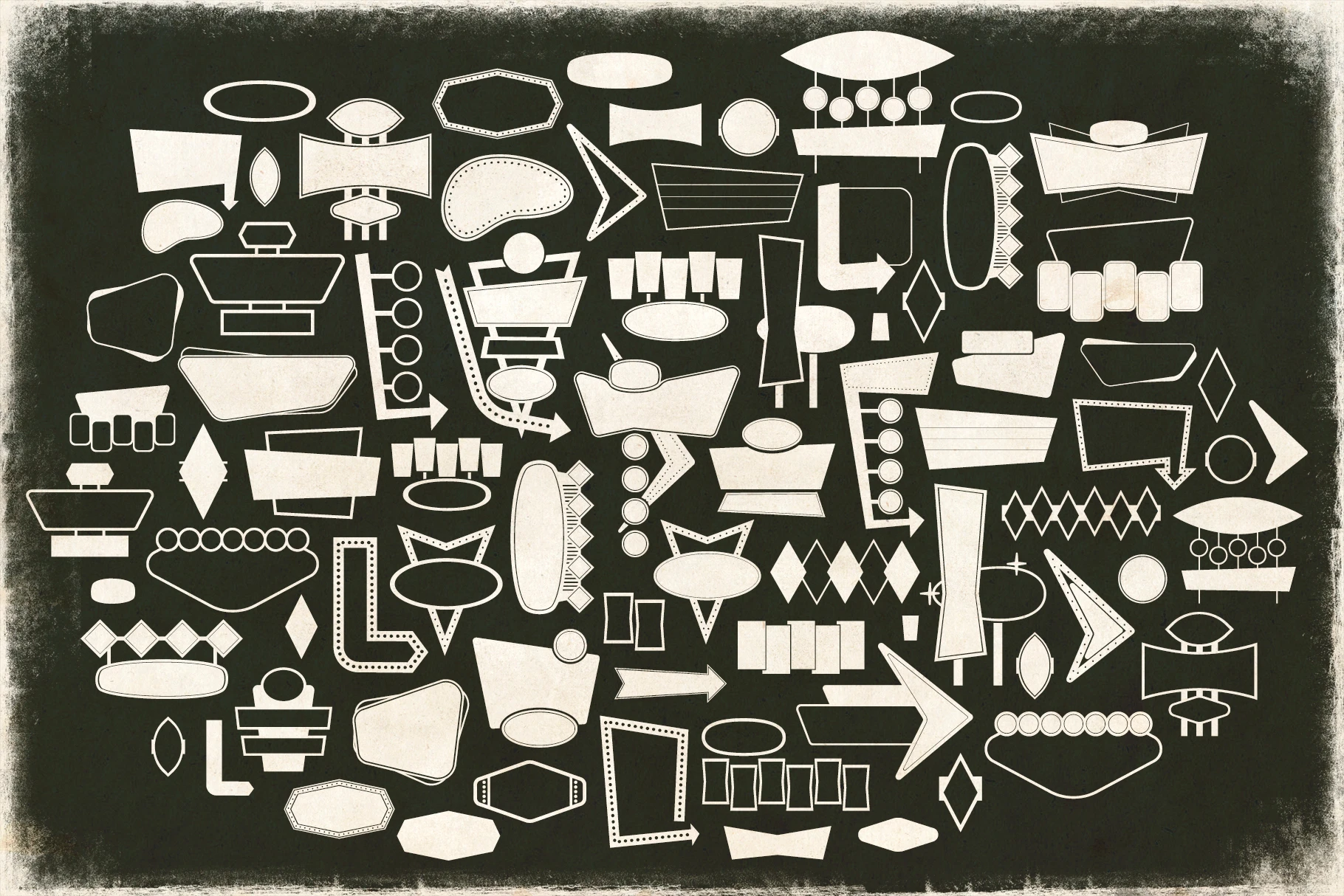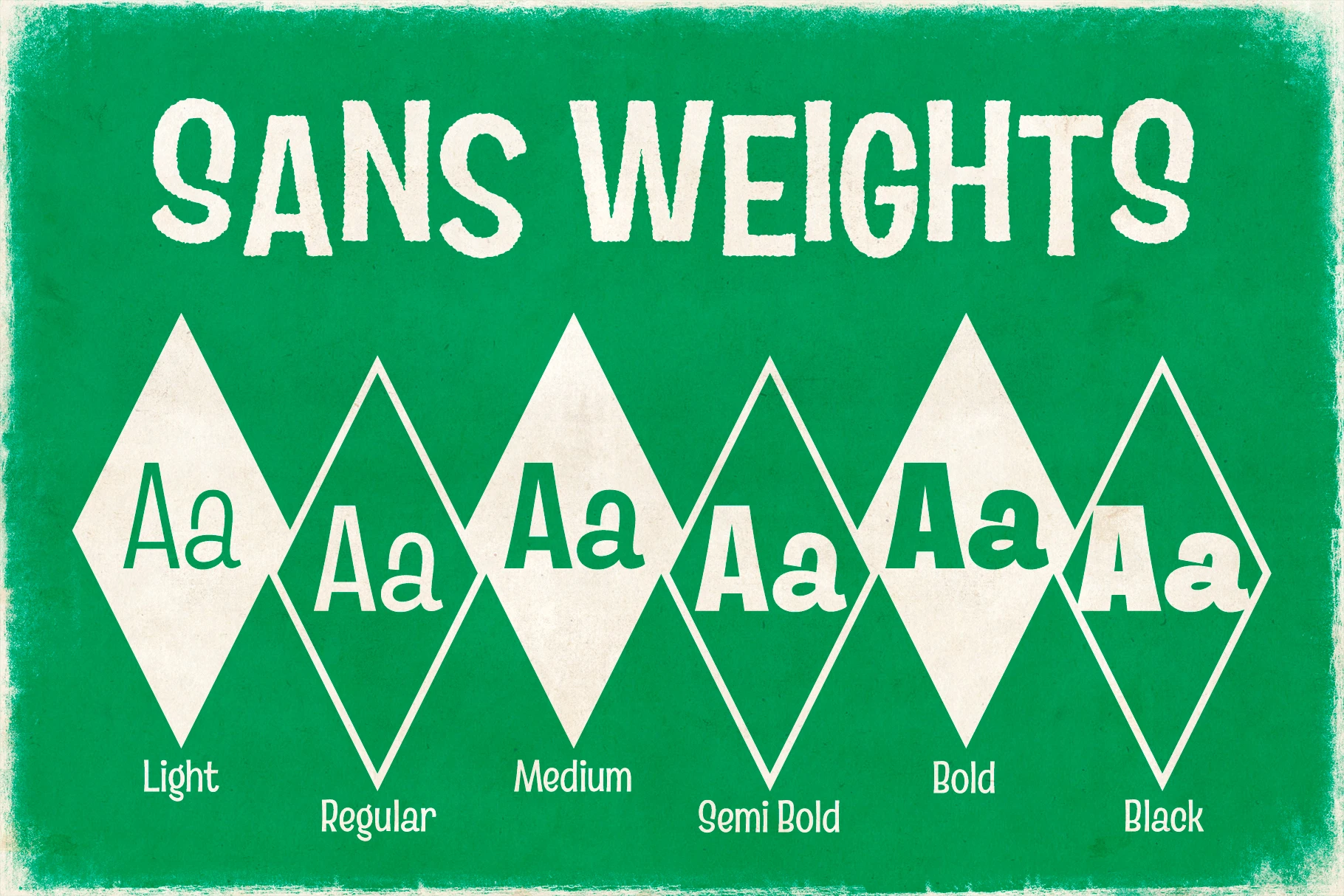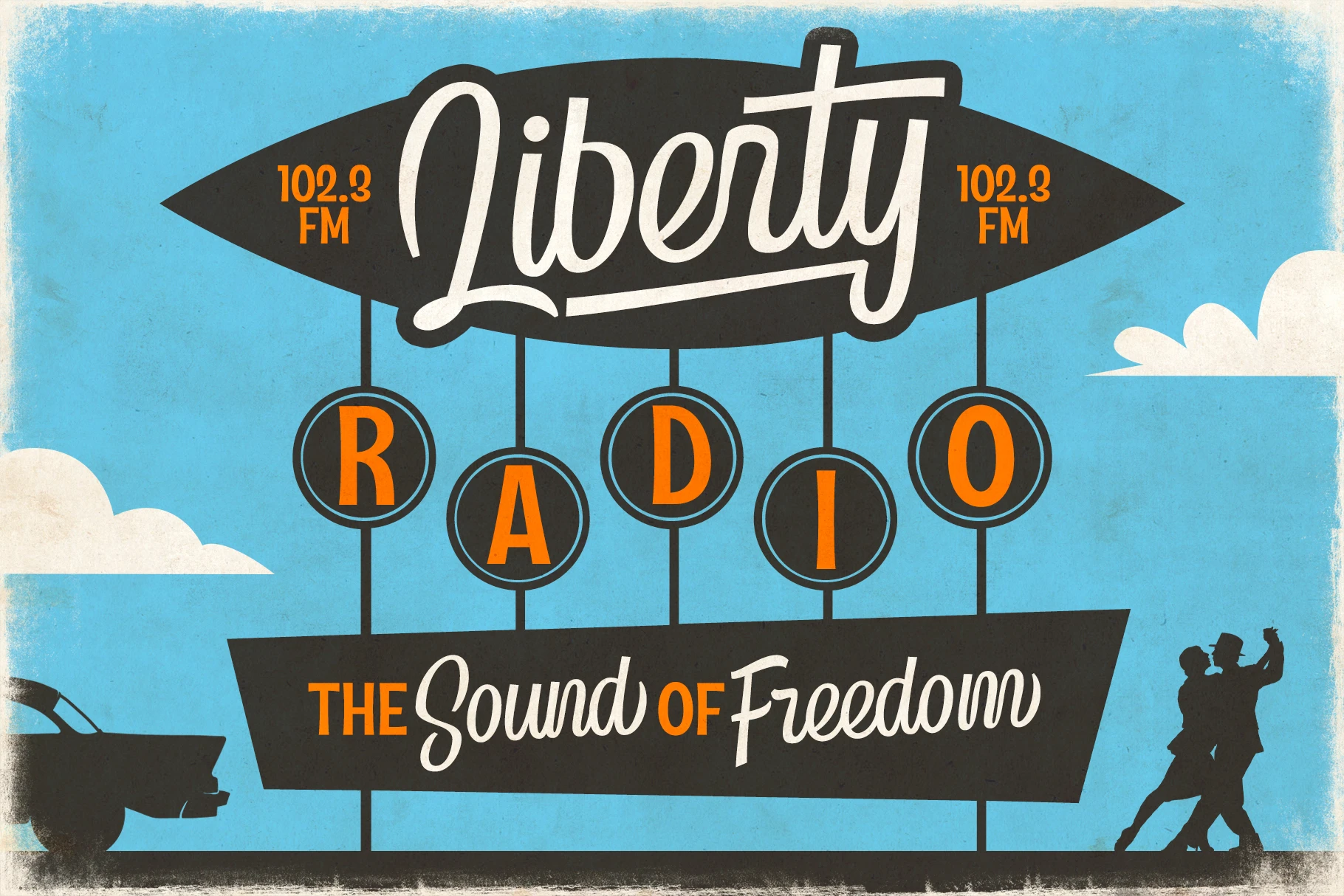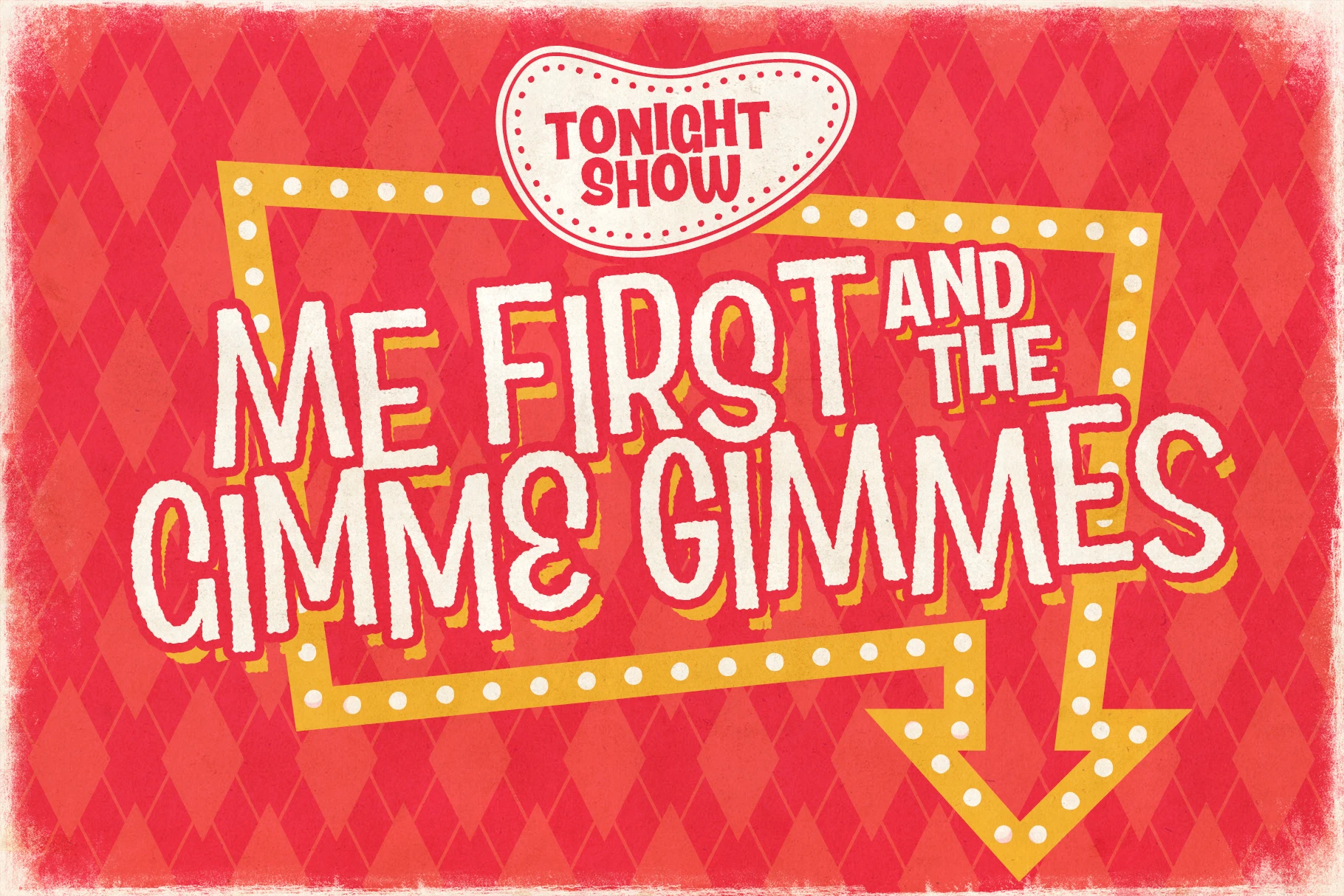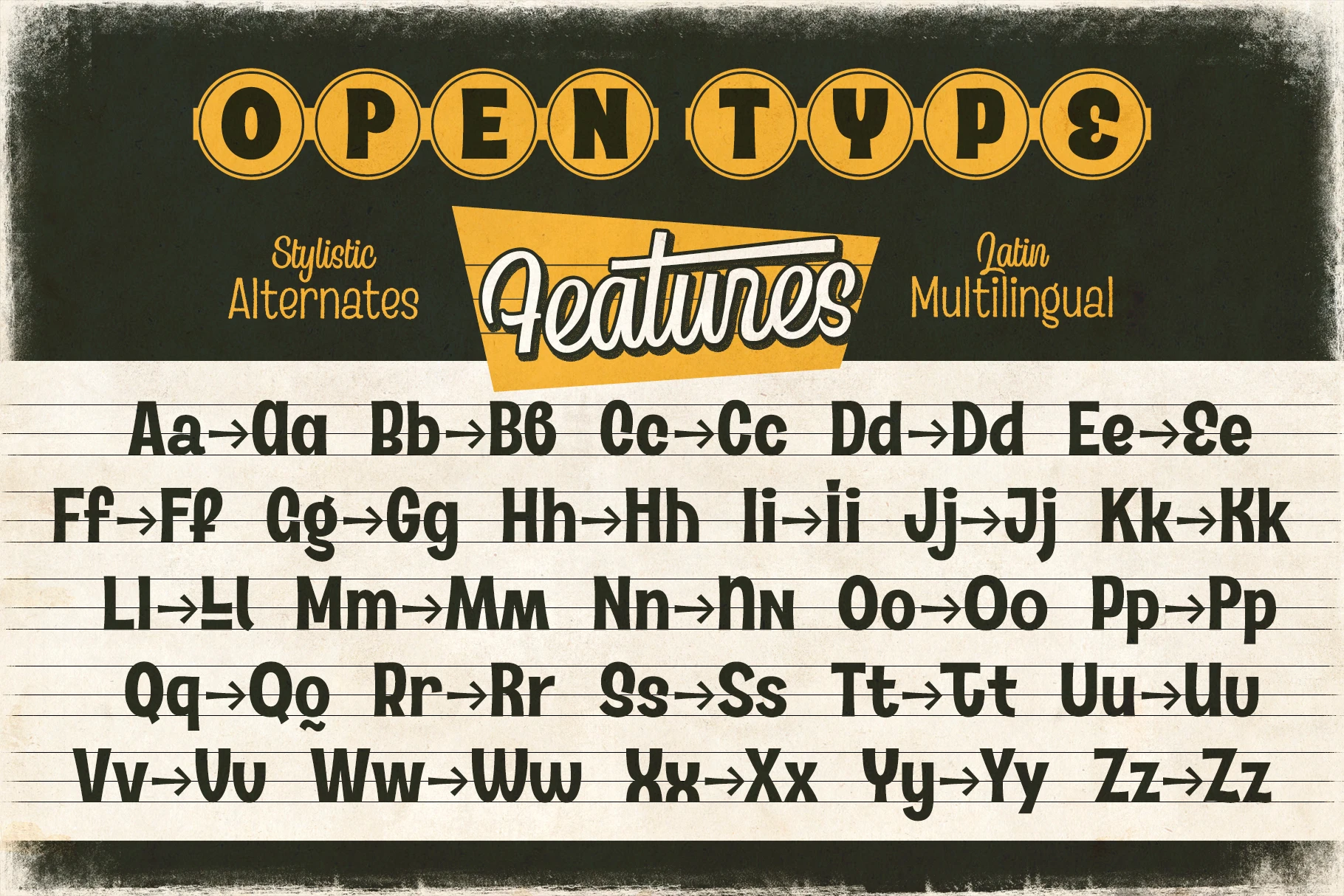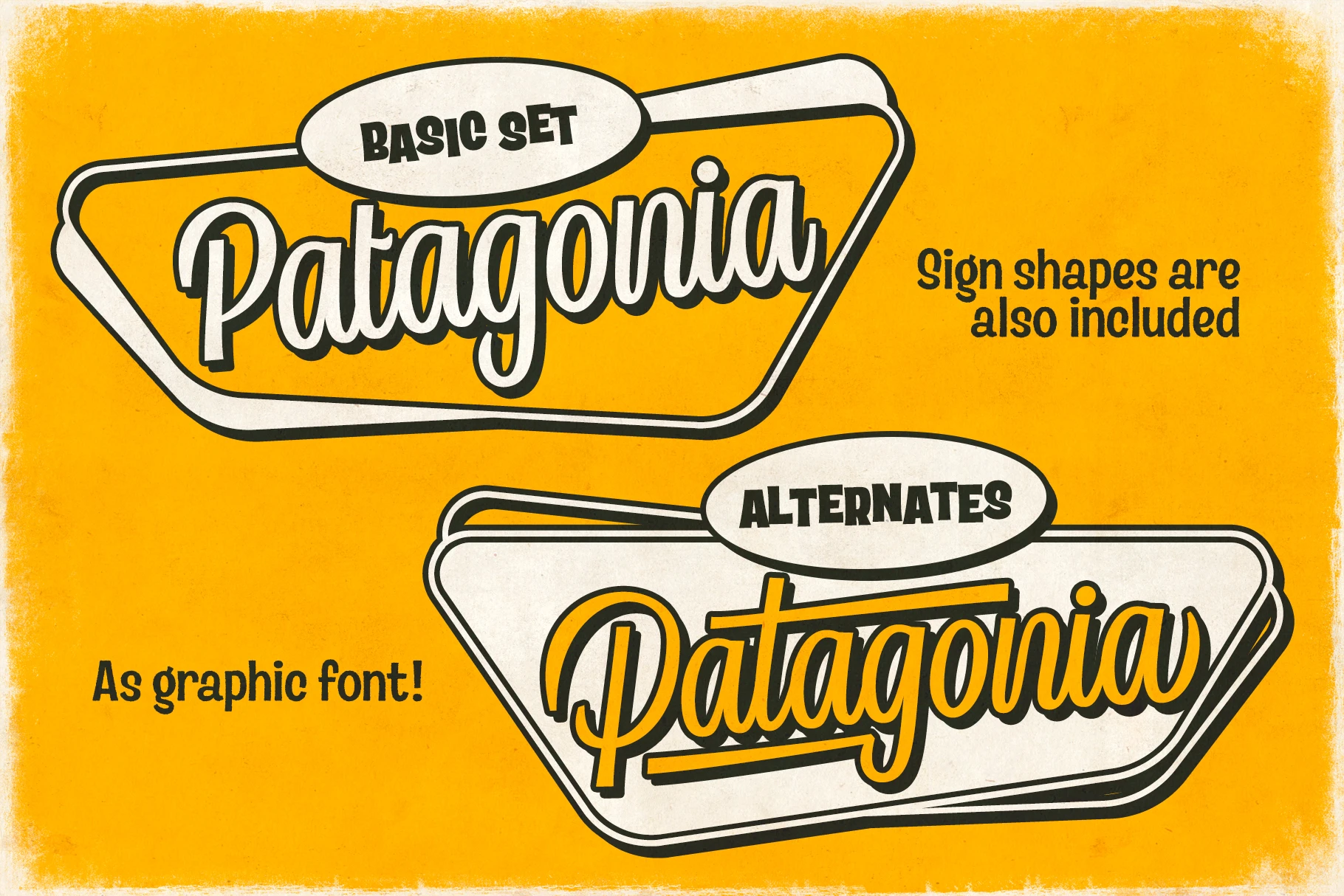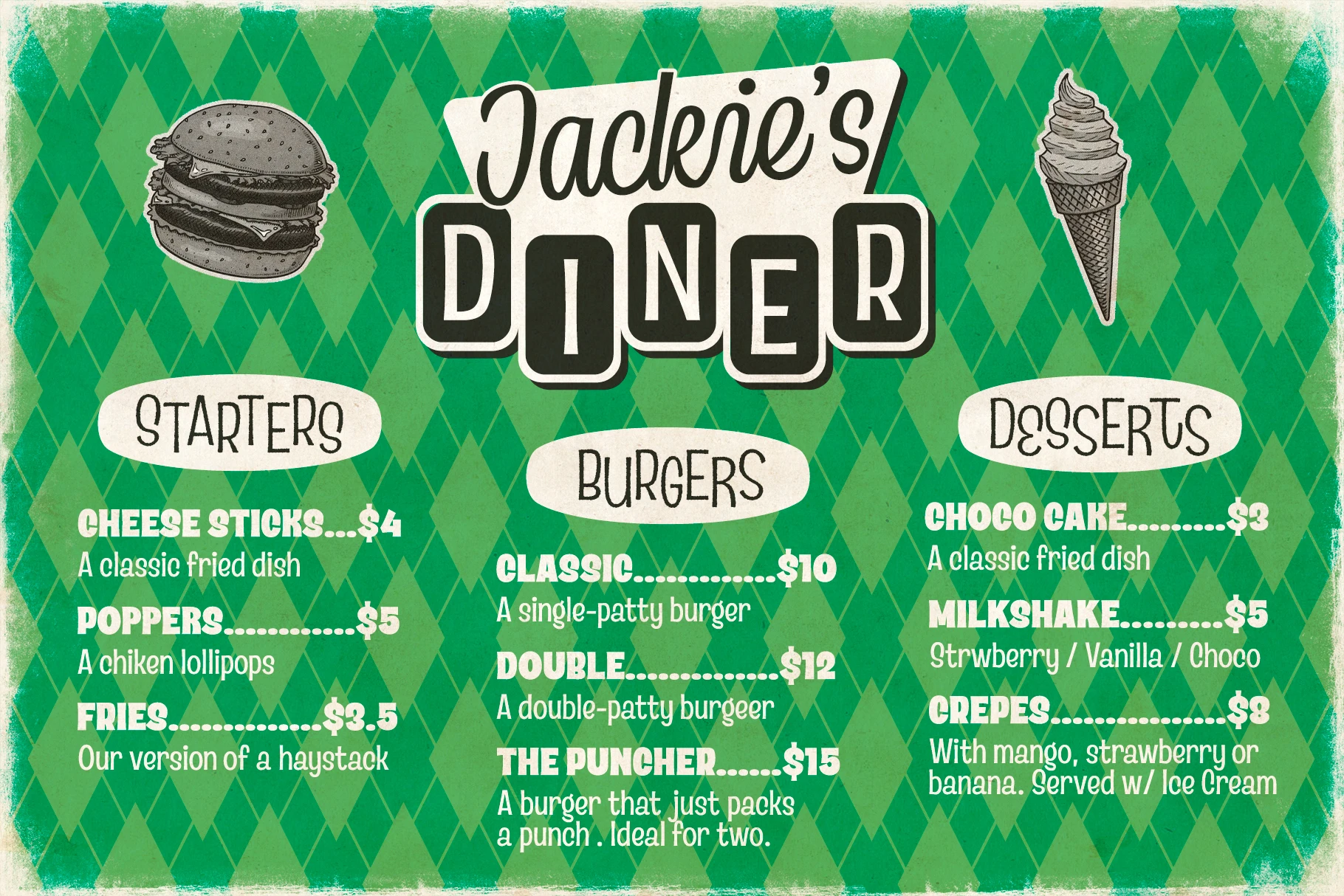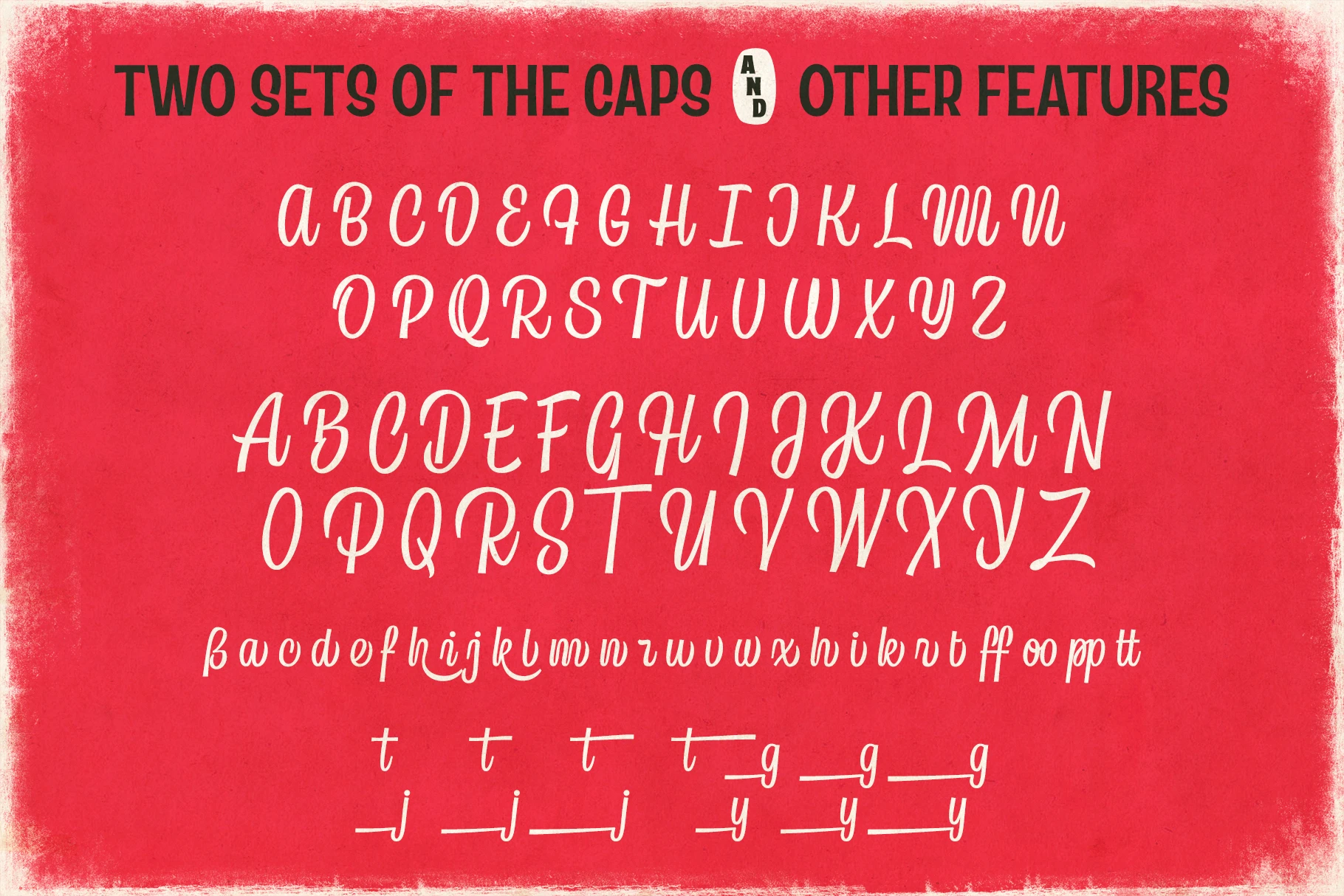
Country Blues Font Family
The Country Blues is a lively font family inspired by vintage vinyl covers, retro sports culture, and classic rock’n’roll vibes. The sans-serif comes in five widths, ranging from light to black, and includes stylistic alternates for a more personalized look. It works especially well in all caps with a playful baseline but also holds up in clean, structured text layouts.
The script adds rhythm and flair with alternate capitals and unique lowercase features like underlined ‘g’, ‘j’, ‘y’, and a special long-stroke ‘t’.
Each style is available in both clear and rough versions, perfect for adding texture or a slightly eerie feel. A graphic font rounds out the collection, featuring a variety of vintage sign shapes — great for logos, badges, or display layouts. Ideal for album art, branding, posters, and retro-themed designs.
• Stylistic Alternates
• Stylistic Sets